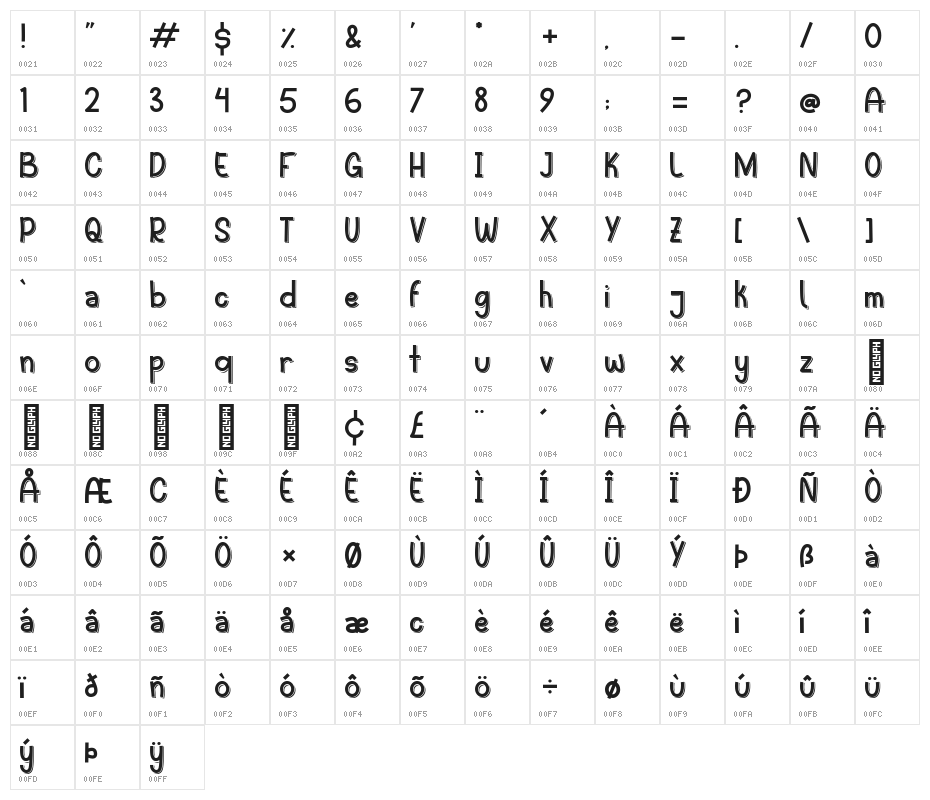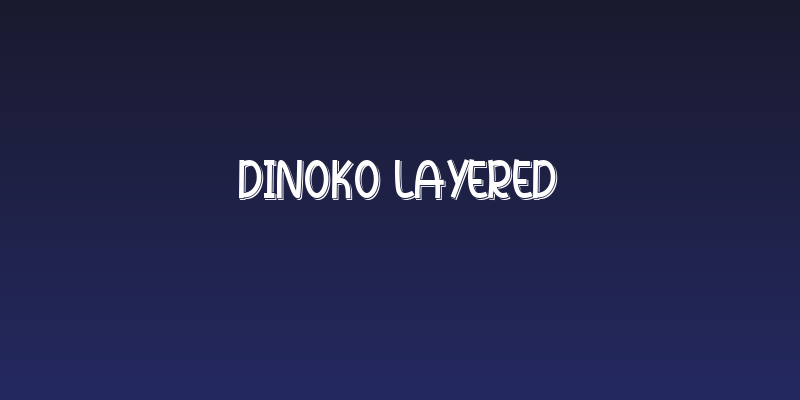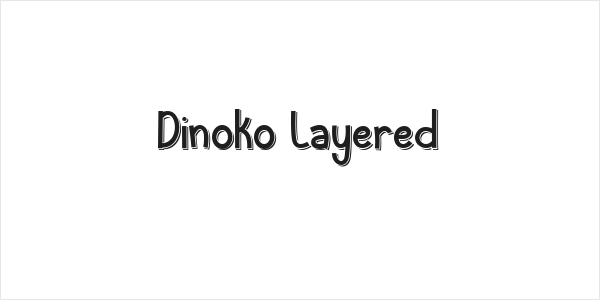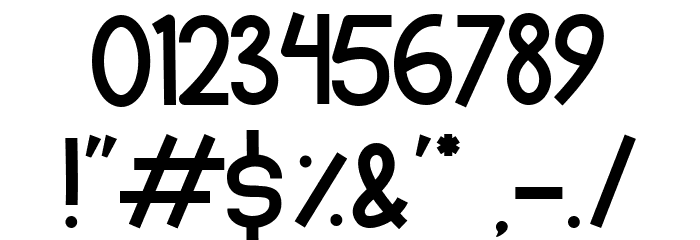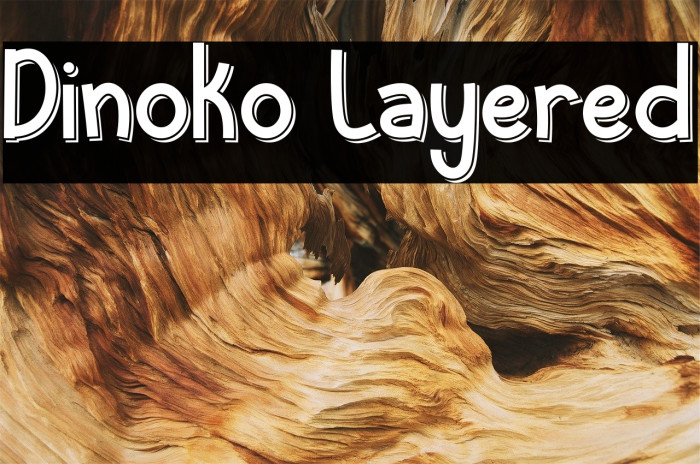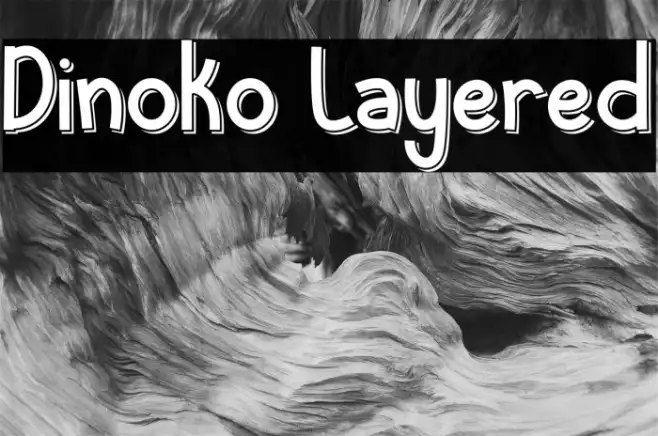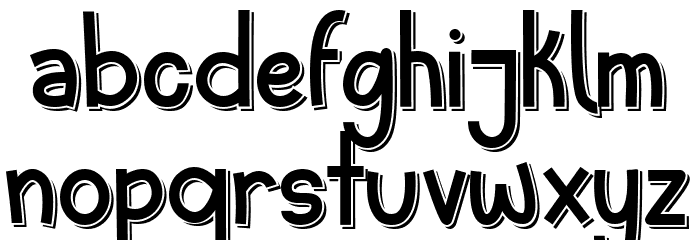
Dinoko Layered Font
Dinoko Layered Description
This font features a playful and bold layered design, giving it a three-dimensional appearance. The uppercase and lowercase letters are crafted with a consistent thickness, creating a cohesive look. The characters have a slightly rounded edge, adding a friendly and approachable feel. The numerals and special characters maintain the same style, ensuring uniformity across all elements. The font's layered effect is achieved through a shadow-like outline that enhances its visual impact, making it ideal for eye-catching designs.
| Overall Style | Playful, Modern |
| Proposed Projects | Perfect for children's books, playful branding, posters, and any design requiring a fun and engaging typeface. |